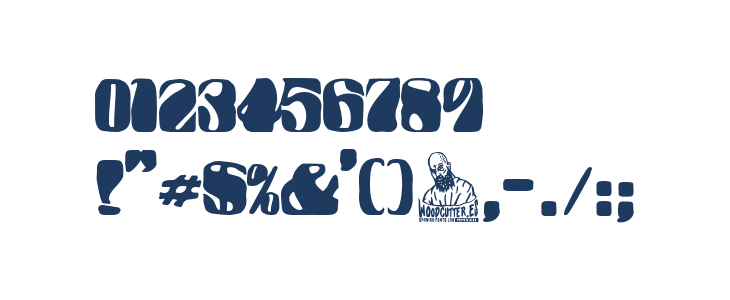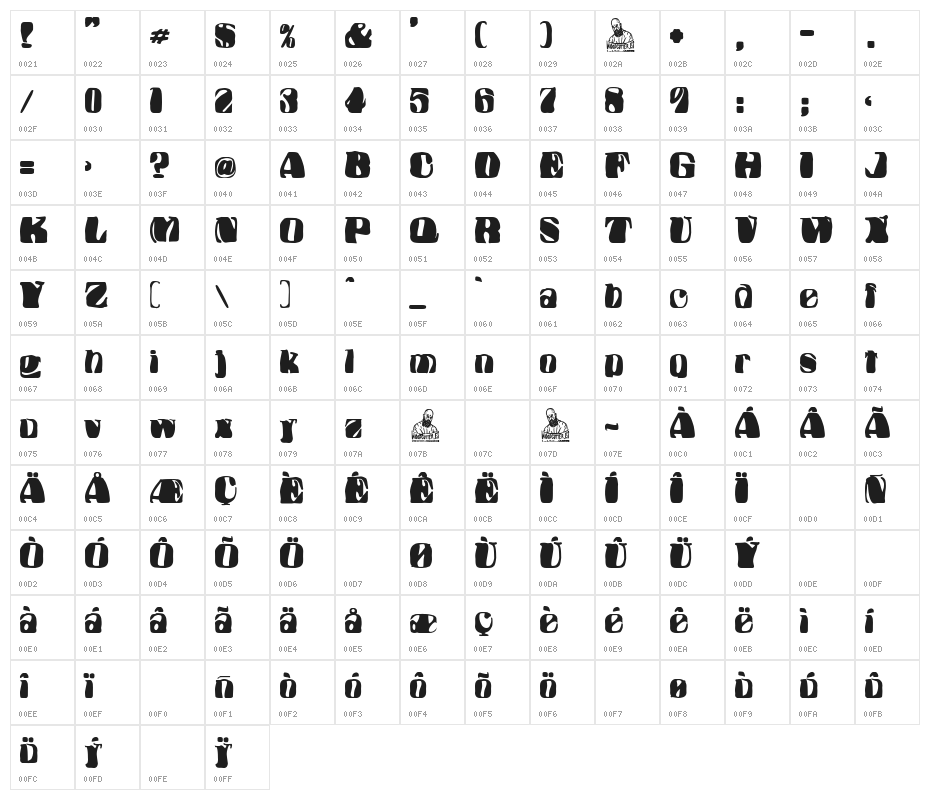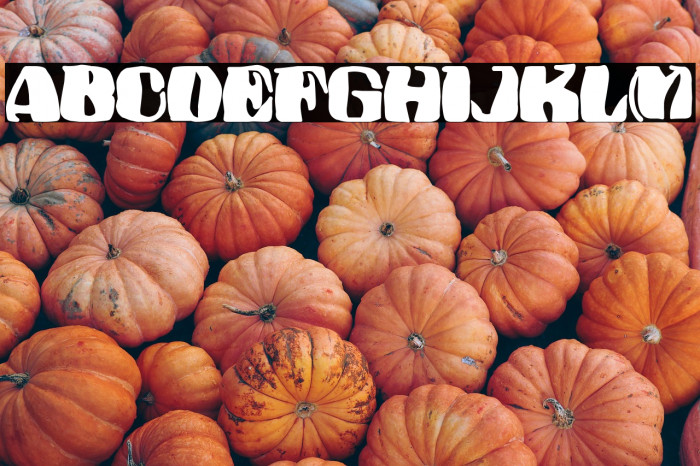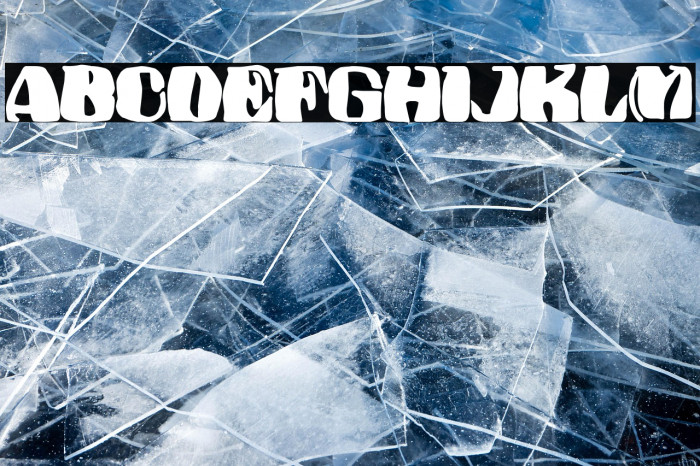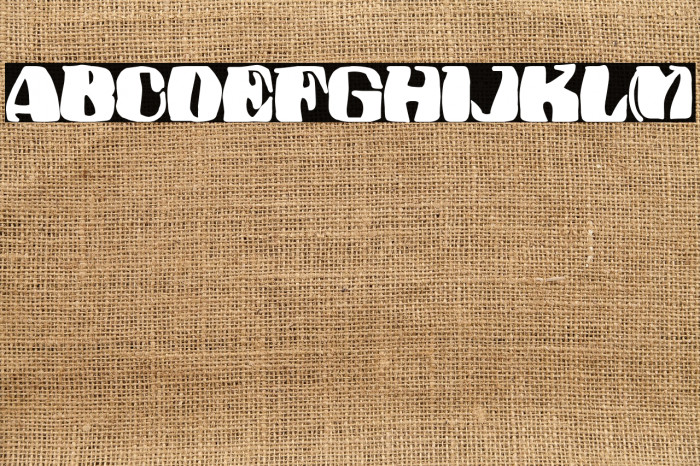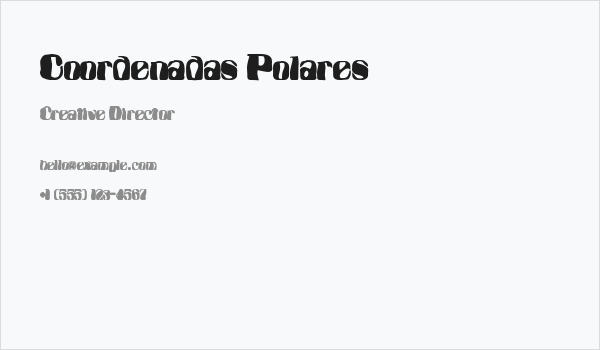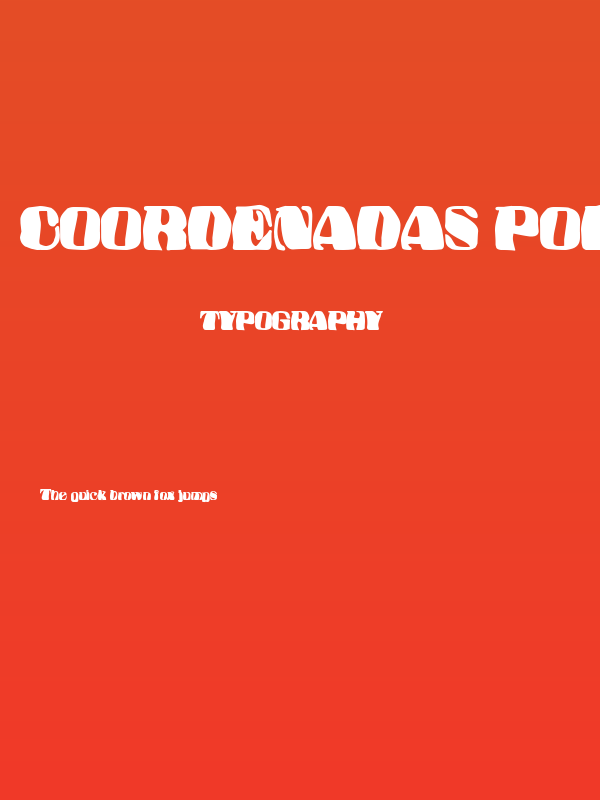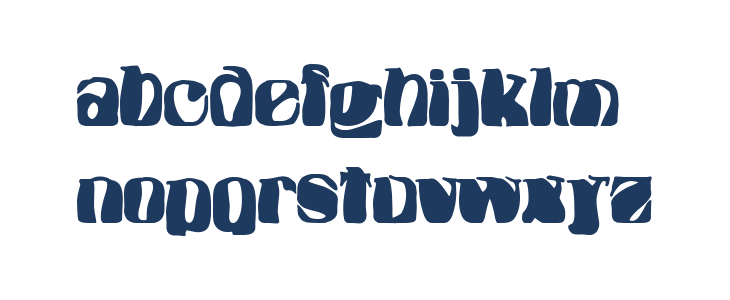
Coordenadas Polares Font
Coordenadas Polares Description
This font features a bold and artistic design with a unique, abstract style. The characters are heavily stylized, with thick strokes and irregular shapes that create a dynamic and eye-catching appearance. The letters have a playful and creative feel, making them stand out with their bold presence. The numbers and special characters follow the same design principles, ensuring consistency across the entire set. The overall look is both modern and artistic, suitable for projects that require a distinctive and unconventional typeface.
| Overall Style | Modern, Artistic |
| Proposed Projects | Ideal for posters, album covers, branding, and any project needing a bold, artistic touch. |